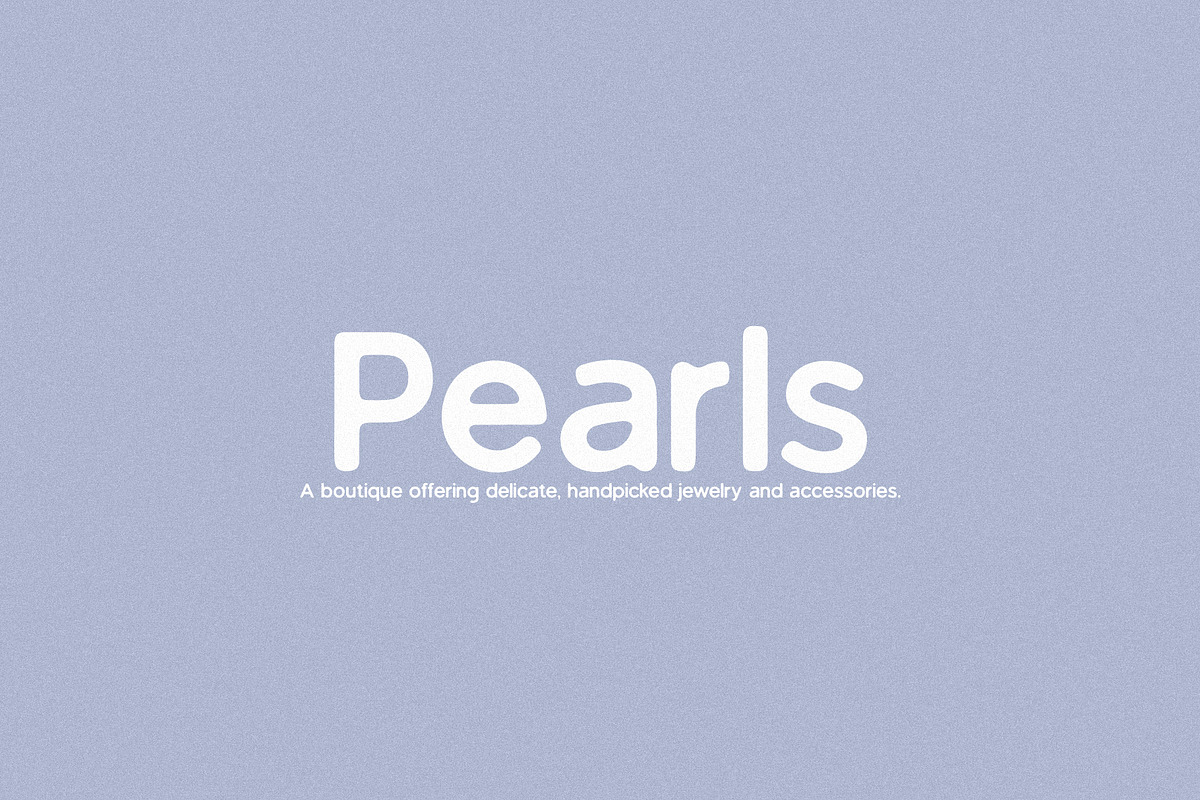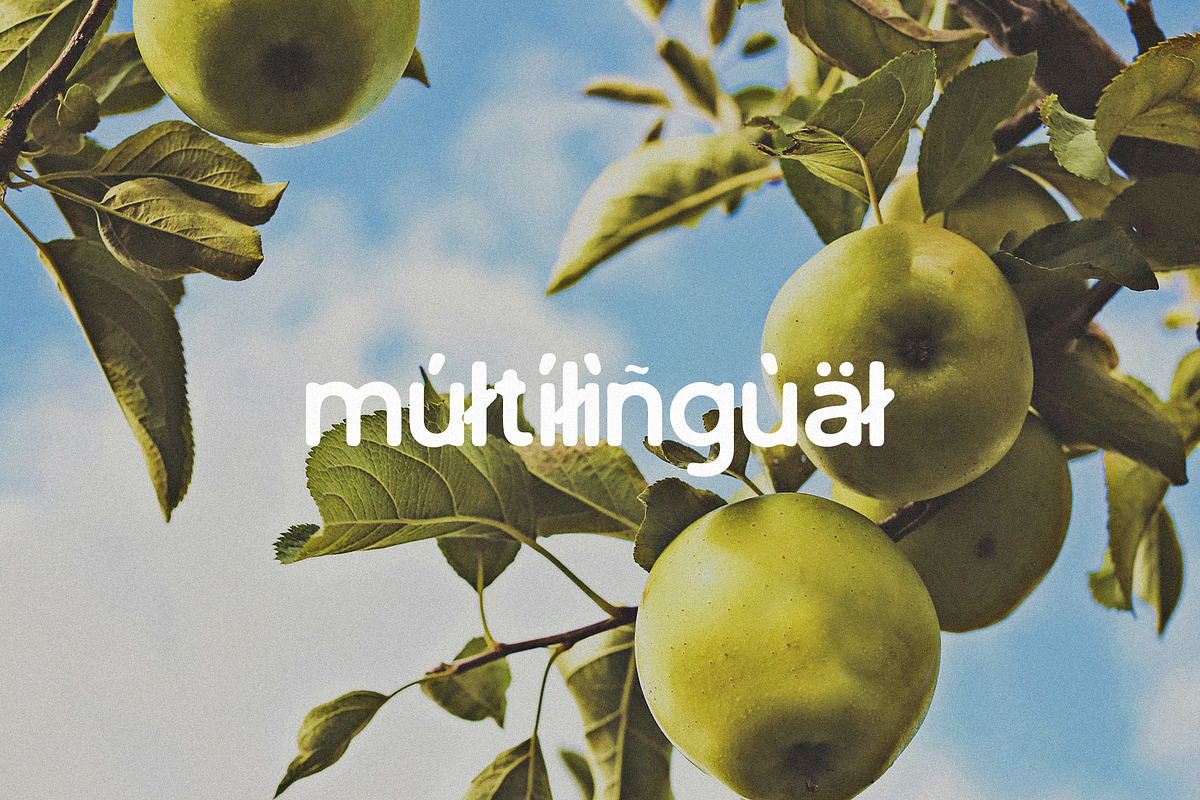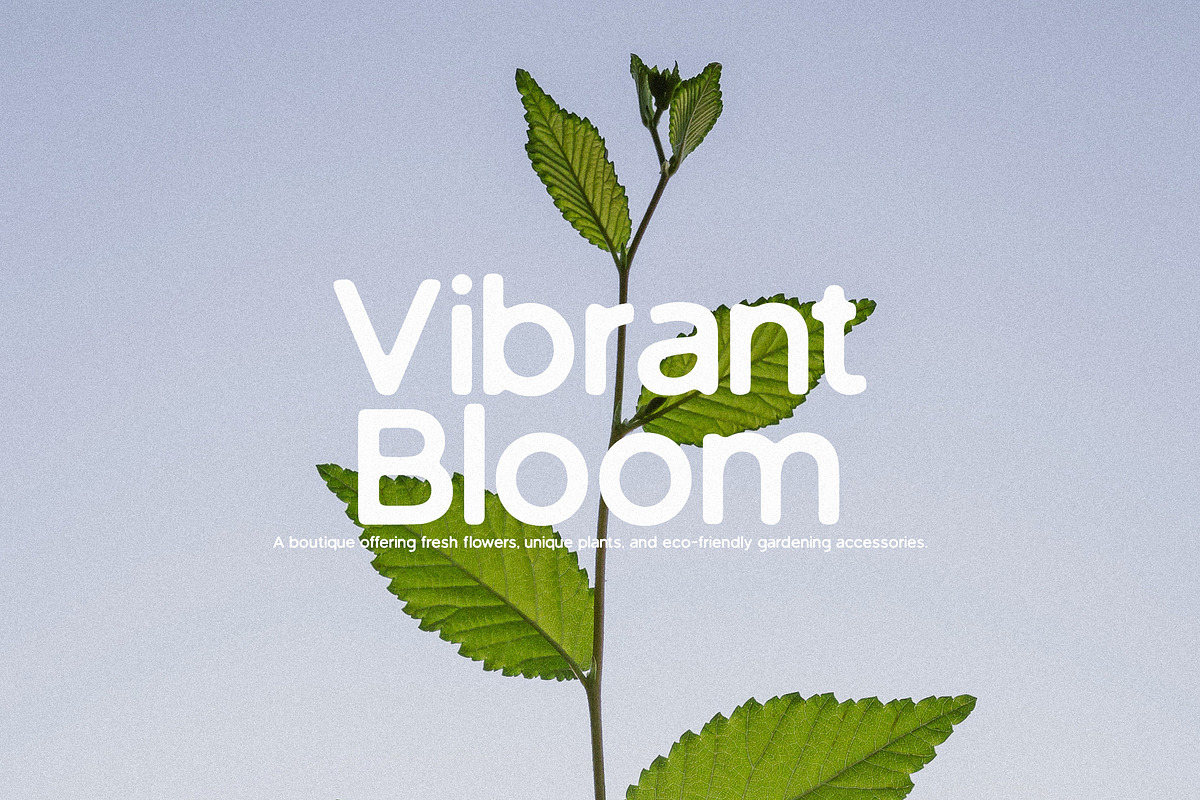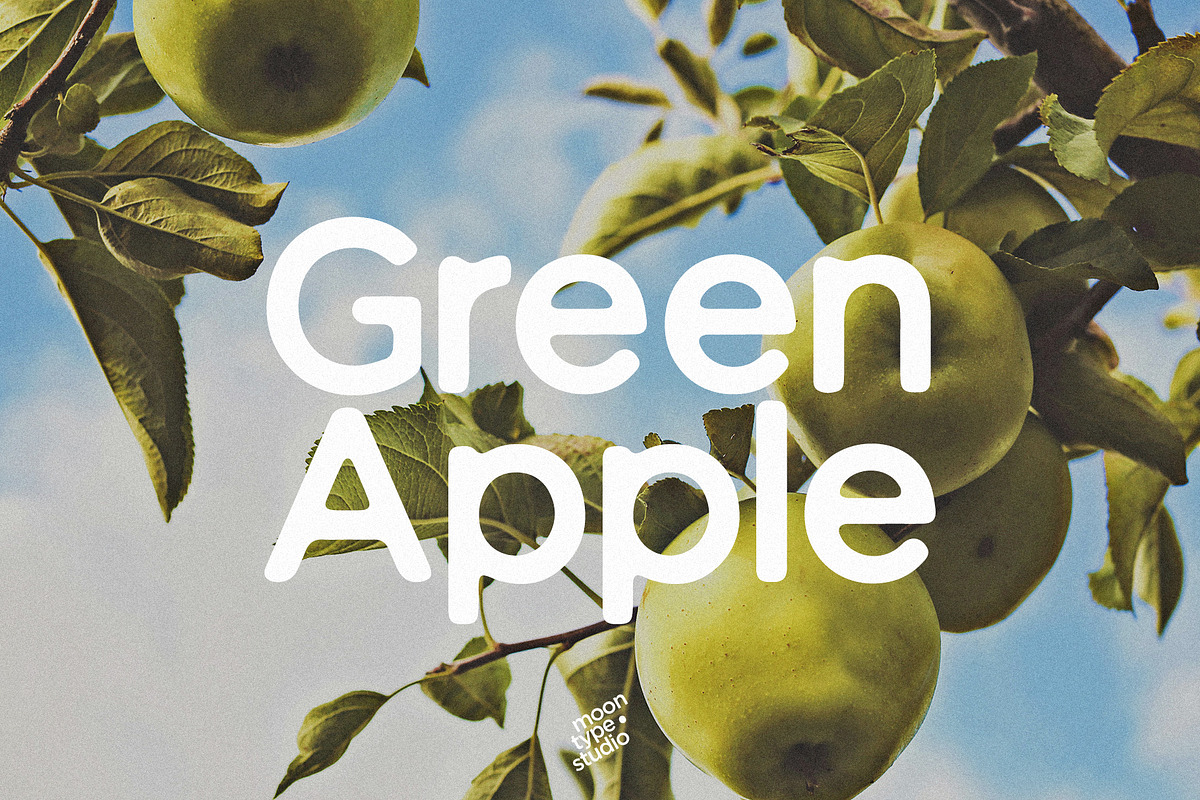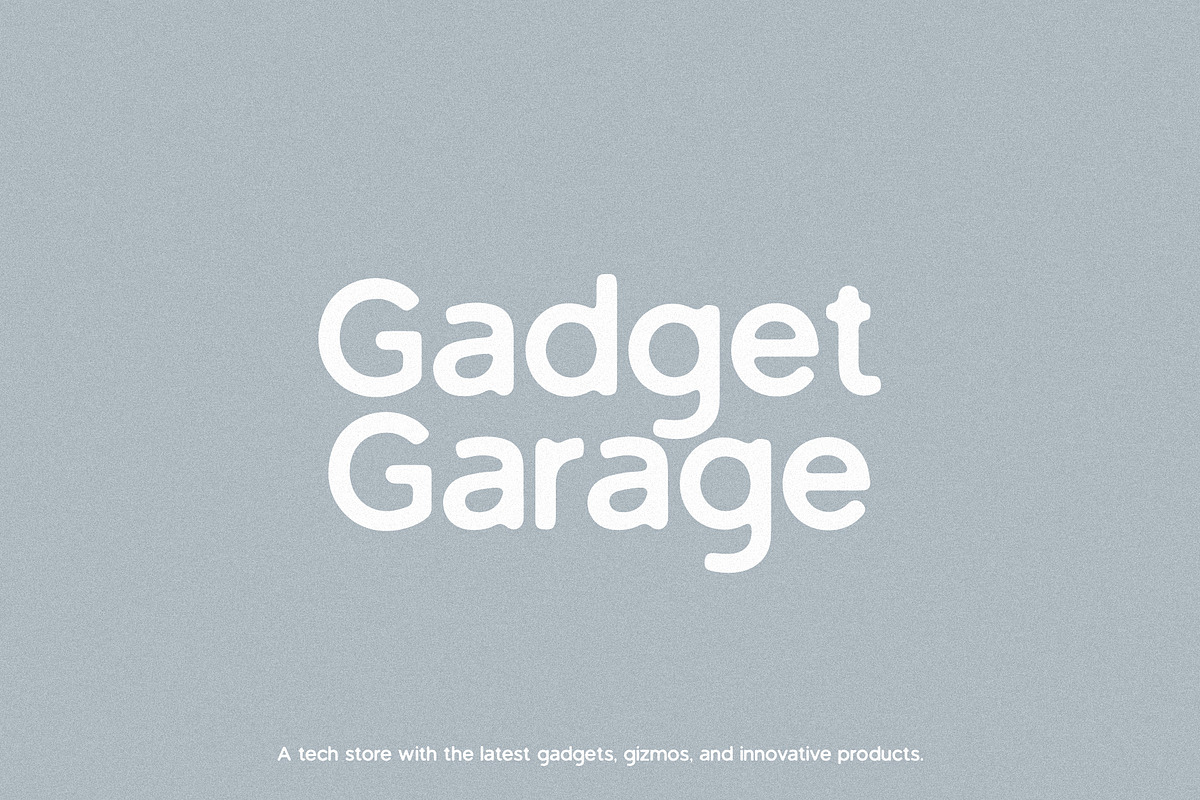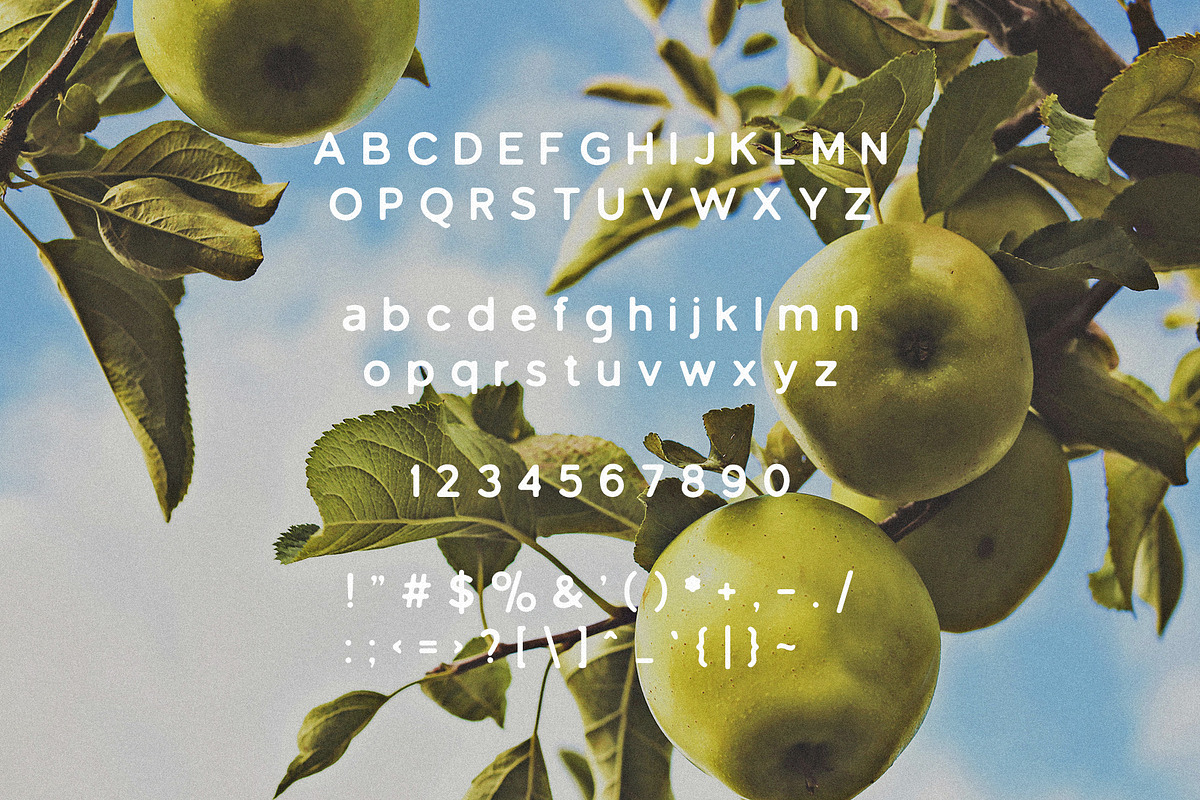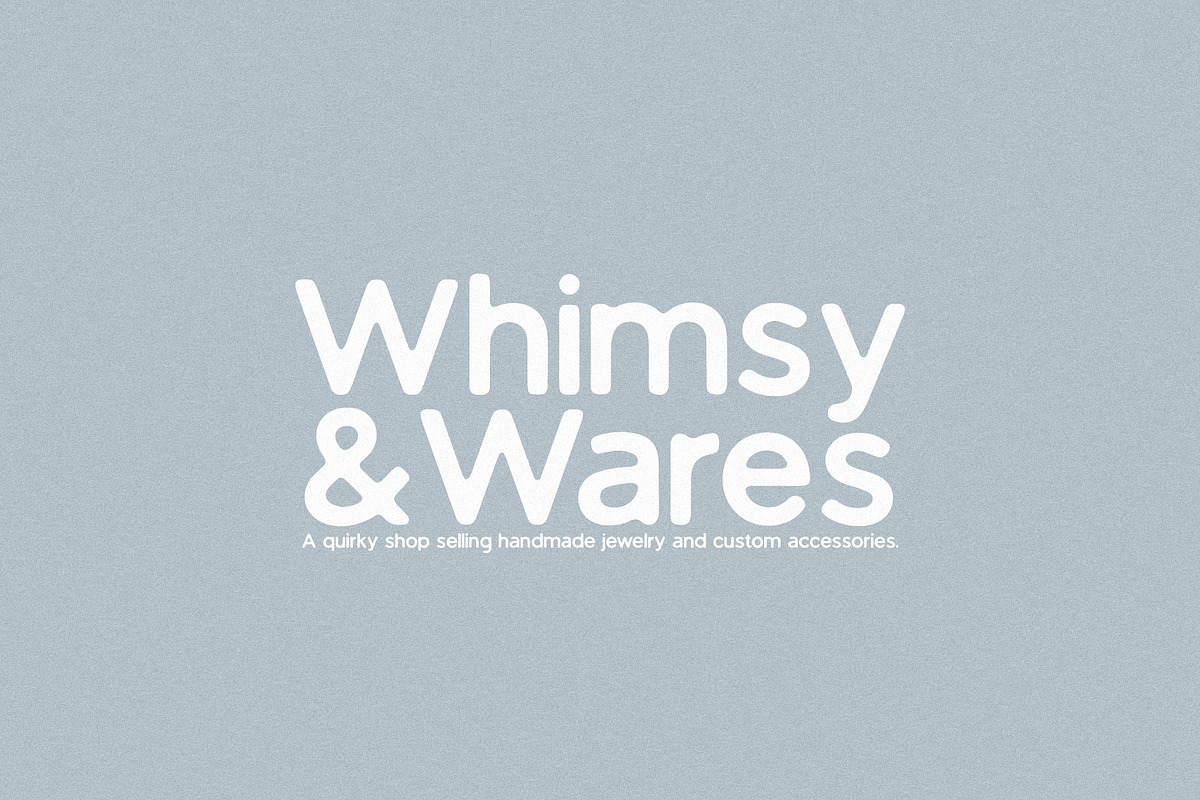
Green Apple - Vintage Sans Serif
Green Apple - Vintage Sans Serif: A retro-inspired typeface that brings a nostalgic, yet modern feel. With its bold, clean lines and unique character, it’s perfect for designs that evoke a sense of classic charm and contemporary flair. Ideal for branding, posters, and eye-catching headlines.